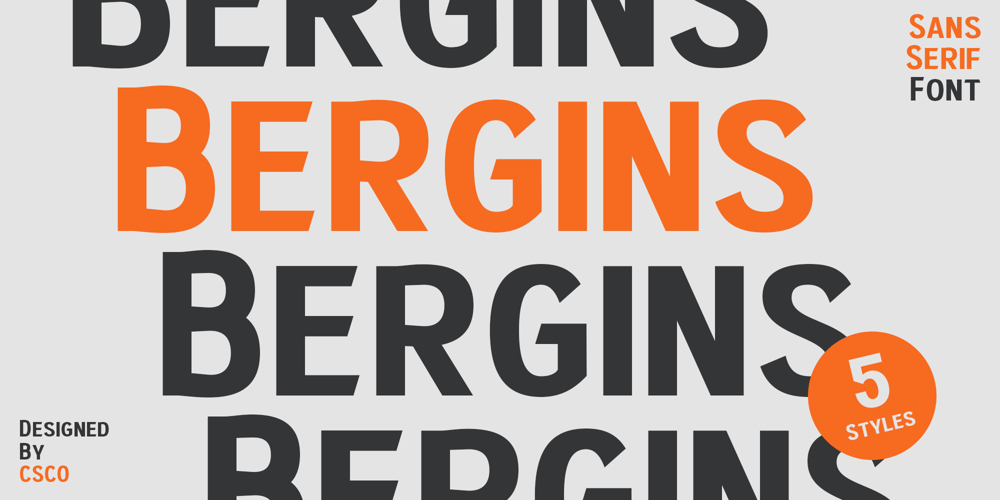
Bergins
Bergins font
Bergins Font Family was designed by Trio Nazzar Saputra, Wahyu Hadi Yuana and published by Craft Supply Co. Bergins contains 5 styles and family package options. Discover Bergins – Grotesque Sans SerifModern AestheticInitially, Bergins captivates with its modern grotesque aesthetic. Designed meticulously, it embodies a fresh and contemporary vibe, ensuring visual appeal and innovation in design.Clarity and PrecisionAdditionally, clarity reigns in its design. Every stroke and curve in Bergins speaks precision, offering optimal readability across various platforms and sizes, facilitating diverse applications.Versatility UnleashedMoreover, Bergins exhibits remarkable versatility. It seamlessly integrates with a multitude of design layouts, from digital platforms to printed materials, enhancing adaptability and usability.